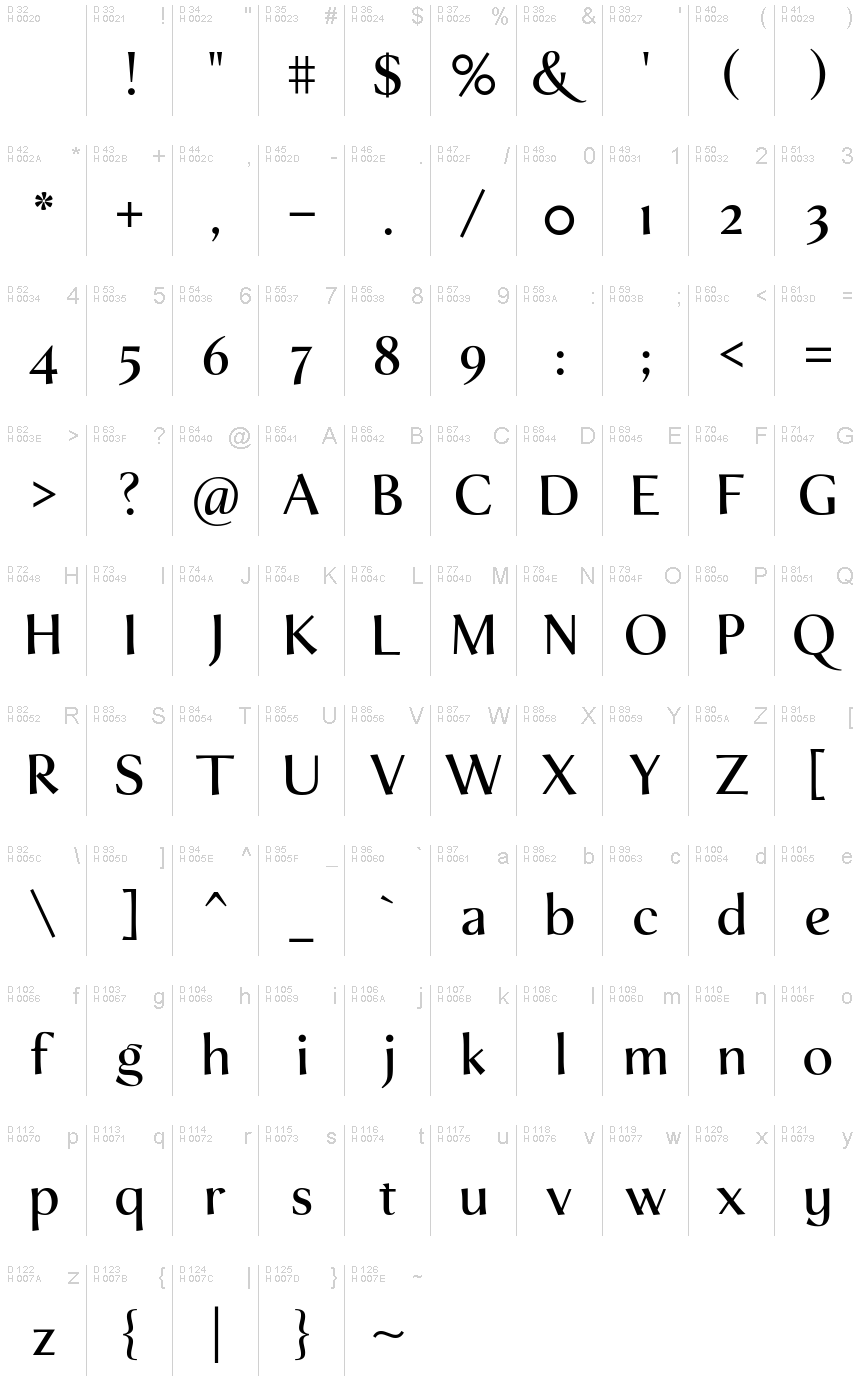
ZT Mota Regular
ZT Mota, crafted by Zelow Type, is a sans serif font that boasts a sleek and modern aesthetic. Its clean lines and unadorned simplicity make it a versatile choice for various design projects. The characters possess an understated elegance that lends itself to readability, ensuring that it stands out without overwhelming the content it accompanies.
This font's charm lies in its clear-cut forms and balanced proportions, which offer a sense of harmony and professionalism. It's an excellent choice for branding, editorial design, or any project where clarity is key. Whether on digital platforms or in print, ZT Mota provides a contemporary feel that can effortlessly elevate the visual appeal of your message.
Designed by Khairunnas from Zelow Type 2023